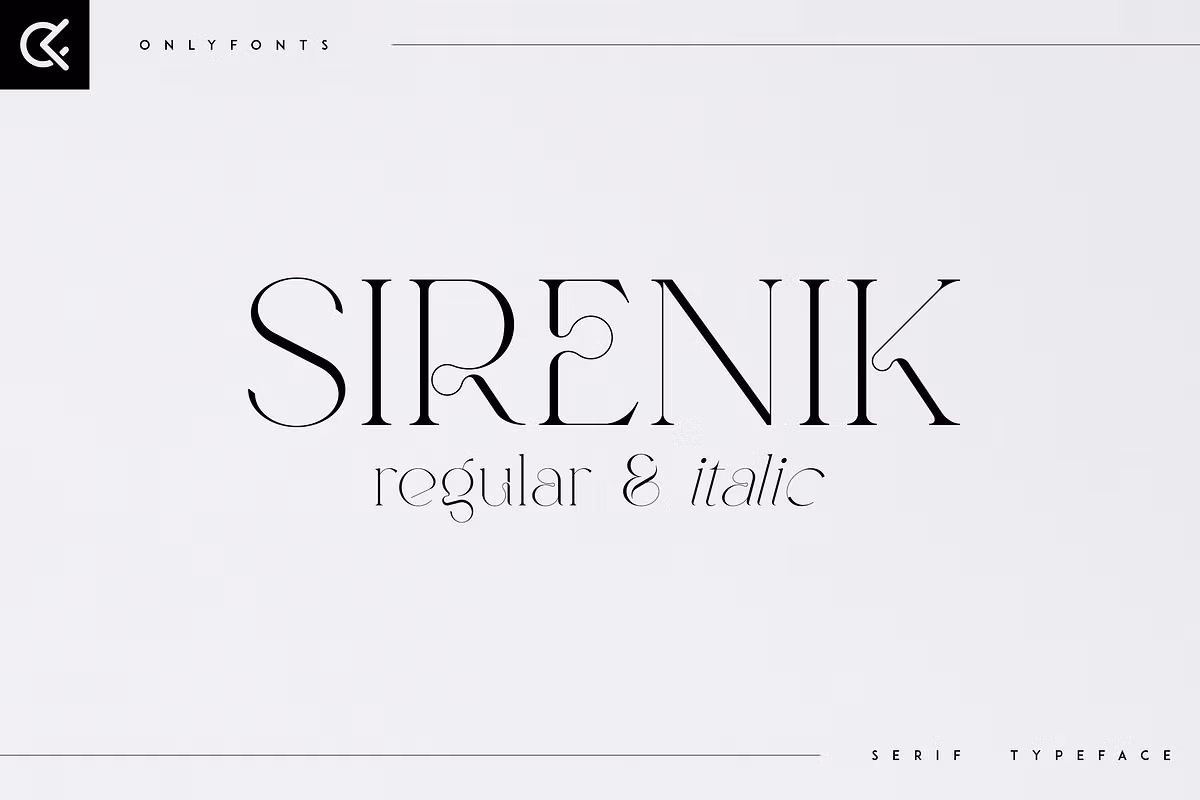
Sirenik - Elegant Serif Typeface Free Download is a sophisticated and refined serif font designed to bring a touch of elegance and luxury to your designs. With its balanced proportions, clean lines, and timeless aesthetic, this font is perfect for high-end branding, editorial design, logos, invitations, and more.
The Sirenik font combines classic serif elements with a modern twist, ensuring readability and style in both print and digital formats. Its elegant design makes it ideal for upscale businesses, weddings, luxury marketing materials, and fashion branding.
Add timeless elegance to your projects with the refined beauty of Sirenik!